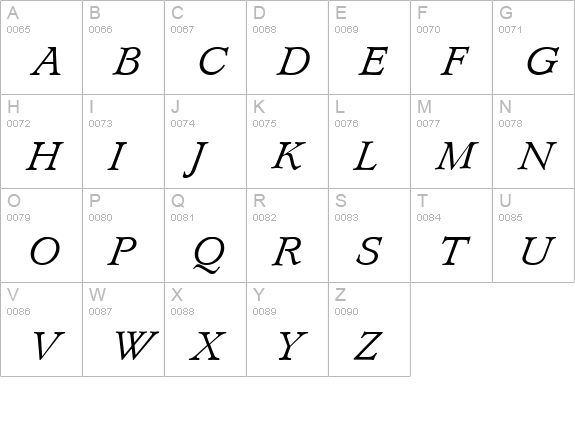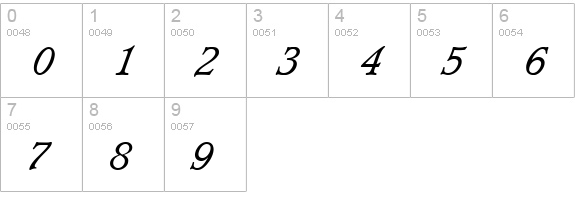
Lynton Light Italic is a refined, elegant, italic variant in the Lynton typeface family \xE2\x80\x94 well suited to elegant body text, refined sub-headings, and luxury branding.
Lynton Light Italic font is a beautifully crafted typeface that exudes elegance and sophistication. Its delicate and graceful letterforms make it perfect for adding a touch of refinement to your designs. The slender curves and subtle slant of the italic style lend a sense of movement and fluidity to the text. Best of all, Lynton Light Italic font is available for free download at FontsMarket.com. This means you can easily access and use this stunning typeface in your projects without any cost. Whether you're designing a wedding invitation, a logo, or a branding project, Lynton Light Italic font is sure to elevate the overall look and feel with its timeless appeal. Don't miss out on this opportunity to enhance your designs with this exquisite font that is just a click away!